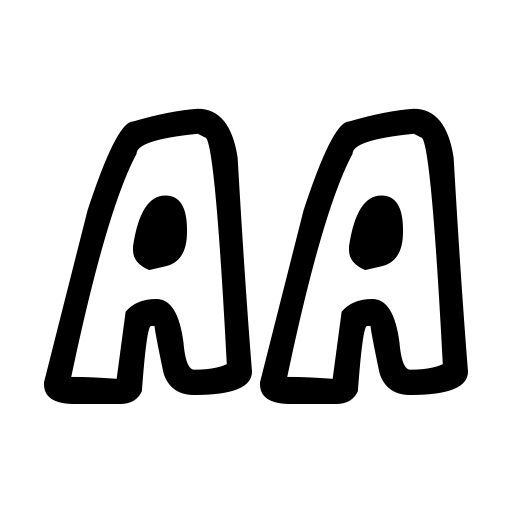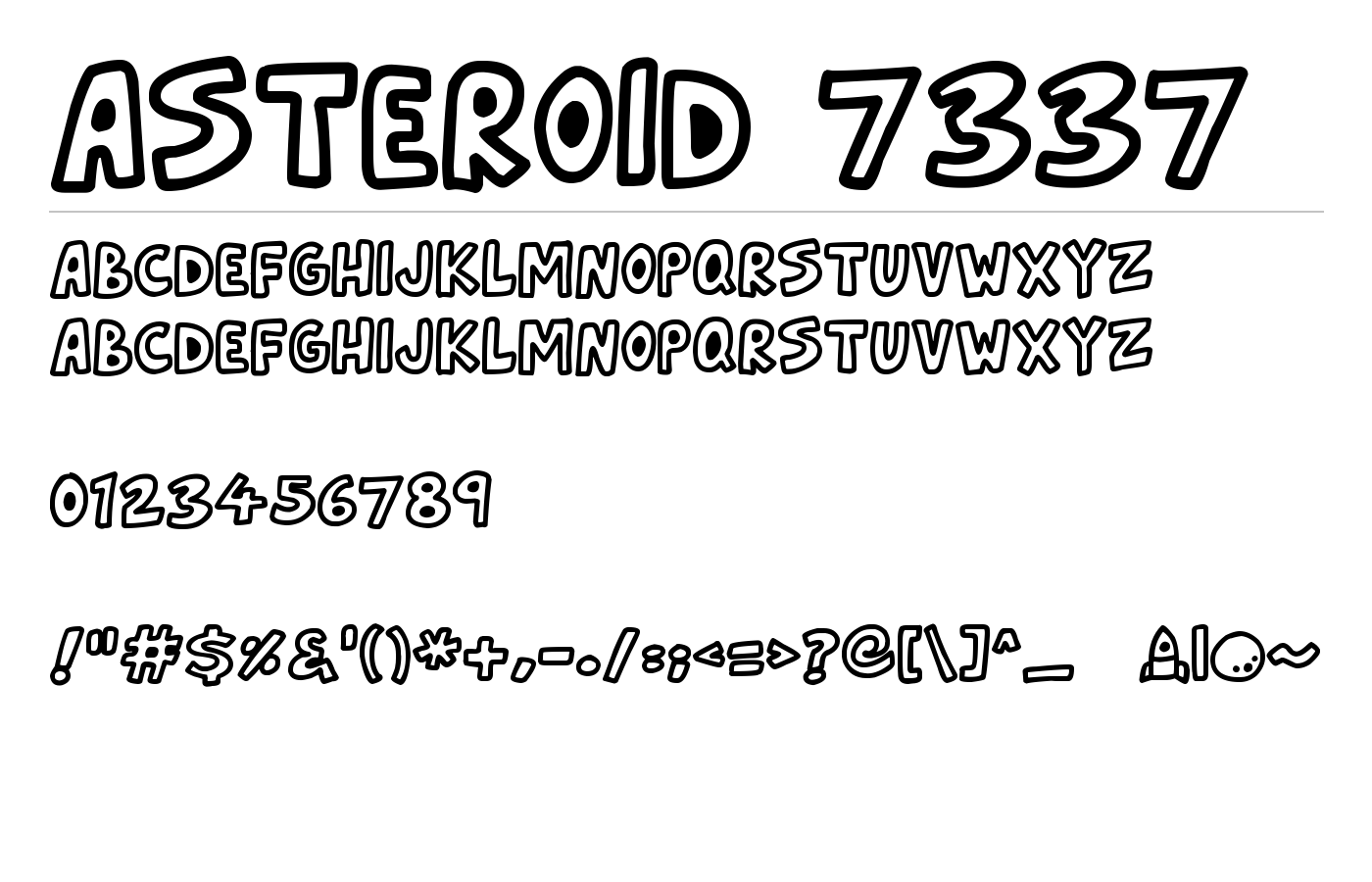
Asteroid 7337 is a playful and fun sans serif font with a hand-drawn, cartoon-like style. Its bold, rounded letterforms and irregular strokes give it a lively and informal feel, making it perfect for children's books, comic designs, or playful branding. This font works well in headlines and creative projects where a whimsical, approachable vibe is needed.
Asteroid 7337 Font
About Asteroid 7337 Font